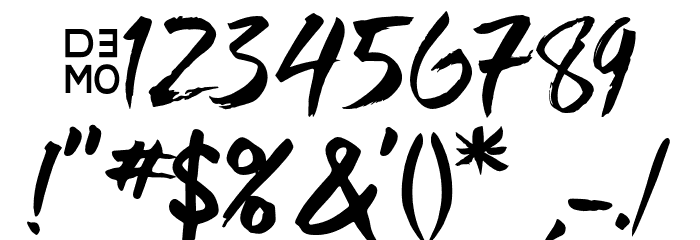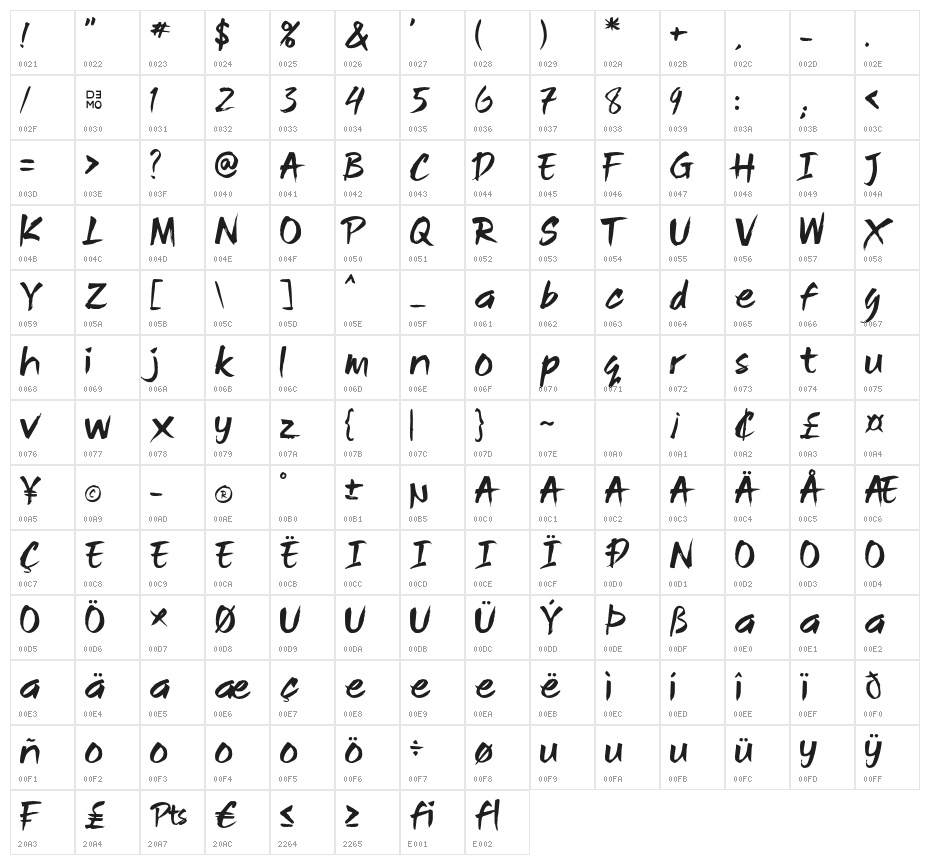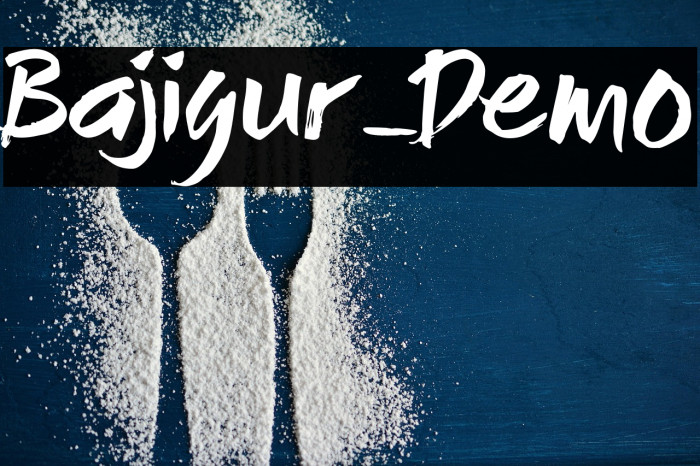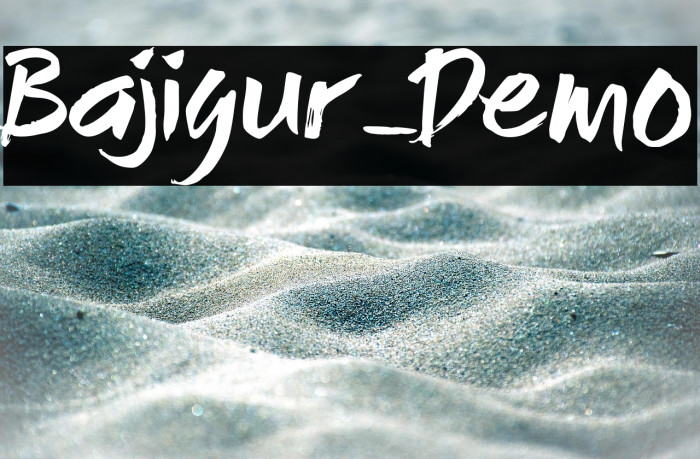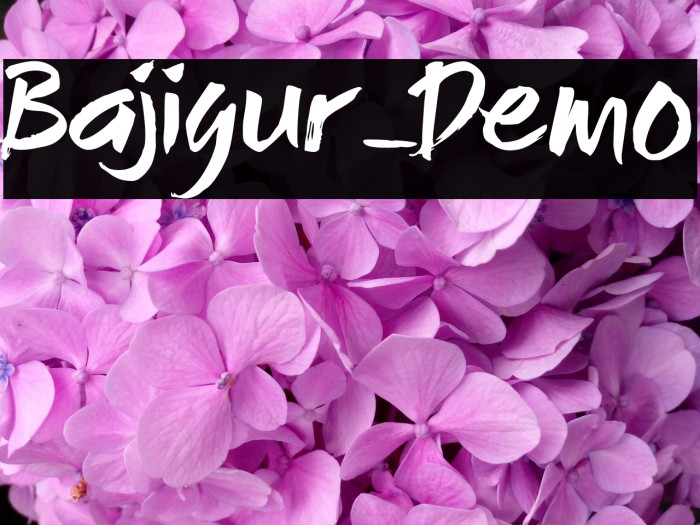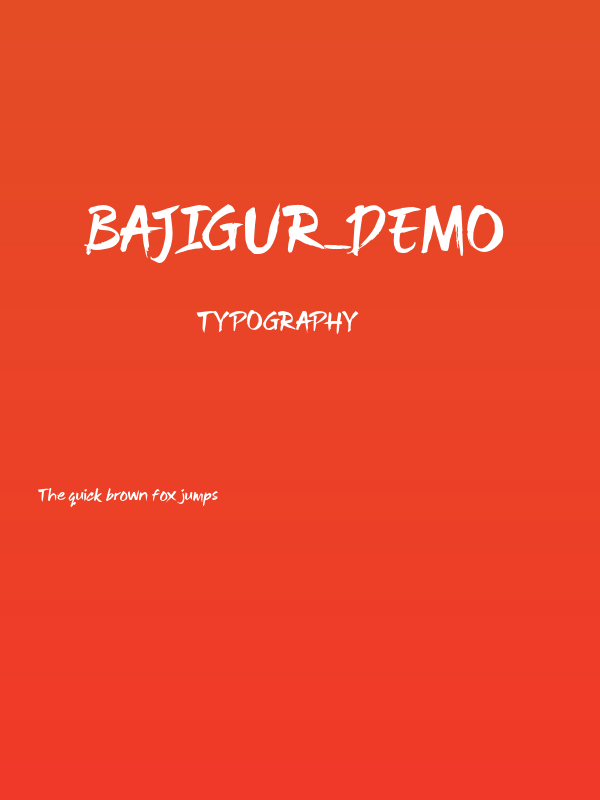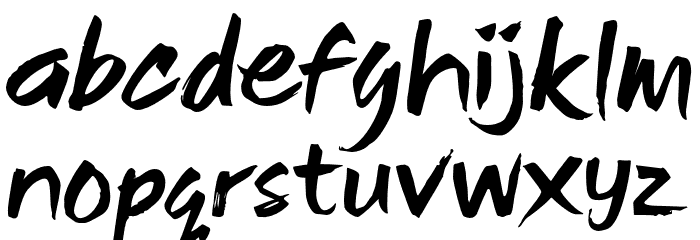
Bajigur_Demo Font
Bajigur_Demo Description
This font features a bold, expressive style with a hand-painted appearance, characterized by its dynamic brush strokes and energetic flow. The uppercase and lowercase letters maintain a consistent, lively rhythm, while the numerals and special characters complement the overall aesthetic. The font's design is reminiscent of street art or graffiti, making it ideal for projects that require a bold, artistic touch. Its irregular edges and varying stroke widths add to its handcrafted feel, providing a sense of movement and spontaneity.
| Proposed Projects | Ideal for posters, album covers, branding, and any creative projects that require a bold, artistic flair. |